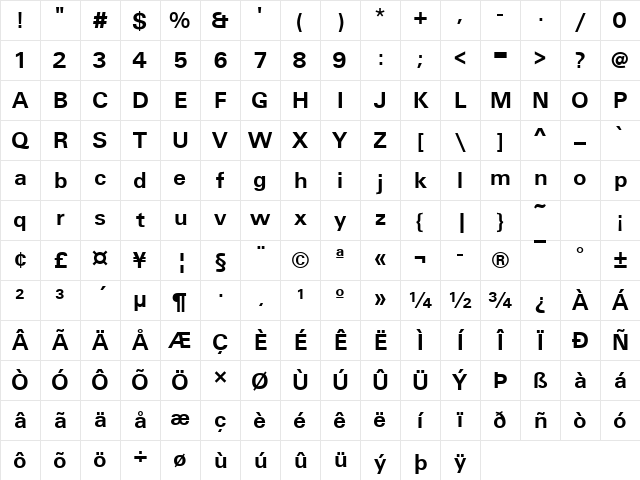
UnitusT Bold
UnitusT Family
Design Context for UnitusT
UnitusT is a composed and adaptable typeface that performs quietly and consistently across a wide range of design contexts. Its bold stroke weight gives it real presence on the page.